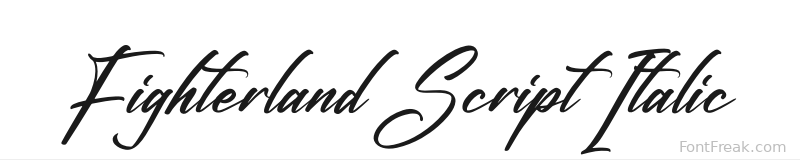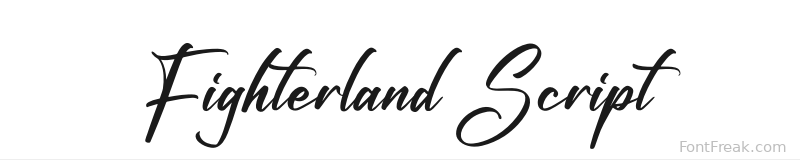
Fighterland Script Italic
Fighterland Script
About Fighterland Script Italic
Fighterland Script Italic is a beautifully crafted script font designed by Perspectype Studio, released in 2021 under a freeware license. This font exemplifies elegance with its flowing, cursive style, making it a standout choice for various creative projects. The strokes are fluid and have a moderate contrast in weight, providing a sense of movement and dynamism. The italicized nature of the font enhances its expressiveness, perfect for adding a touch of sophistication to any design. The spacing is thoughtfully balanced, ensuring legibility while maintaining a stylish appearance.
Ideal for a range of applications, Fighterland Script Italic shines in wedding invitations, where its romantic flair can beautifully convey heartfelt sentiments. It is also well-suited for restaurant menus, giving a touch of class that can elevate the dining experience. Graphic designers may find it perfect for branding projects, such as logos or packaging, where a unique and memorable typeface is essential. Additionally, it can be effectively used in event flyers, adding an artistic flair that captures attention. Small business owners looking to create a distinctive identity will appreciate the font’s ability to convey personality and charm.
The target audience for Fighterland Script Italic includes graphic designers, small business owners, and content creators who seek a versatile typeface that combines elegance and creativity. Whether you are designing for print or digital media, this font offers an appealing solution.
What sets Fighterland Script Italic apart is its perfect balance of artistic flair and usability. The graceful curves and stylish italicized form make it not only visually appealing but also functional for a variety of design needs. For those interested, the Fighterland Script Italic font free download makes it easily accessible for anyone looking to enhance their projects with a touch of elegance.